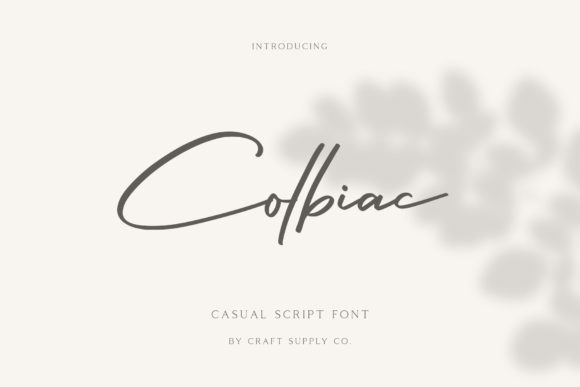
Discover the Bold Authenticity of Colbiac Font
Are you tired of using the same old fonts in your designs? Look no further than Colbiac, a stunning script font that’s full of authenticity and bold vibes. In this article, we’ll dive into the world of Colbiac and explore what makes it so unique, and how you can use it to take your designs to the next level.
What is Colbiac Font?
Colbiac is a beautiful script font that’s perfect for designers and crafters looking to add a touch of elegance and sophistication to their work. With its bold and authentic vibe, Colbiac is sure to make a statement in any design. Whether you’re working on a logo, a branding project, or a craft project, Colbiac is the perfect choice.
Characteristics of Colbiac Font
So, what makes Colbiac so special? Here are just a few of its key characteristics:
- Bold and Authentic: Colbiac has a bold and authentic vibe that’s perfect for making a statement in your designs.
- Script Style: Colbiac is a script font, with flowing lines and a natural, handwritten feel.
- Highly Legible: Despite its bold style, Colbiac is highly legible, making it perfect for use in a variety of design applications.
- Versatile: Colbiac is a versatile font that can be used in a wide range of design projects, from logos and branding to crafts and DIY projects.
How to Use Colbiac Font in Your Designs
So, how can you use Colbiac in your designs? Here are a few ideas to get you started:
- Logos and Branding: Colbiac is perfect for use in logos and branding projects, where its bold and authentic vibe can help to make a statement.
- Crafts and DIY Projects: Colbiac is also great for use in crafts and DIY projects, such as handmade cards, gift tags, and other paper crafts.
- Signage and Displays: With its high legibility and bold style, Colbiac is perfect for use in signage and display projects, such as store signs, banners, and posters.
Tips for Getting the Most Out of Colbiac Font
Here are a few tips for getting the most out of Colbiac:
- Experiment with Different Sizes: Colbiac looks great in a variety of sizes, so don’t be afraid to experiment and find the perfect size for your project.
- Pair with Other Fonts: Colbiac pairs well with a variety of other fonts, so try pairing it with some of your favorite fonts to create a unique and interesting look.
- Use it Sparingly: While Colbiac is a beautiful font, it can be overwhelming if used too much. Try using it sparingly to add a touch of elegance and sophistication to your designs.
In conclusion, Colbiac is a stunning script font that’s full of authenticity and bold vibes. With its highly legible and versatile design, Colbiac is perfect for use in a wide range of design projects, from logos and branding to crafts and DIY projects. Whether you’re a designer or a crafter, Colbiac is sure to inspire you to create something beautiful and unique.
Get Inspired by Colbiac Font
So, what are you waiting for? Get inspired by Colbiac and take your designs to the next level. With its bold and authentic vibe, Colbiac is sure to make a statement in any design. So, go ahead, give Colbiac a try, and see what amazing things you can create!